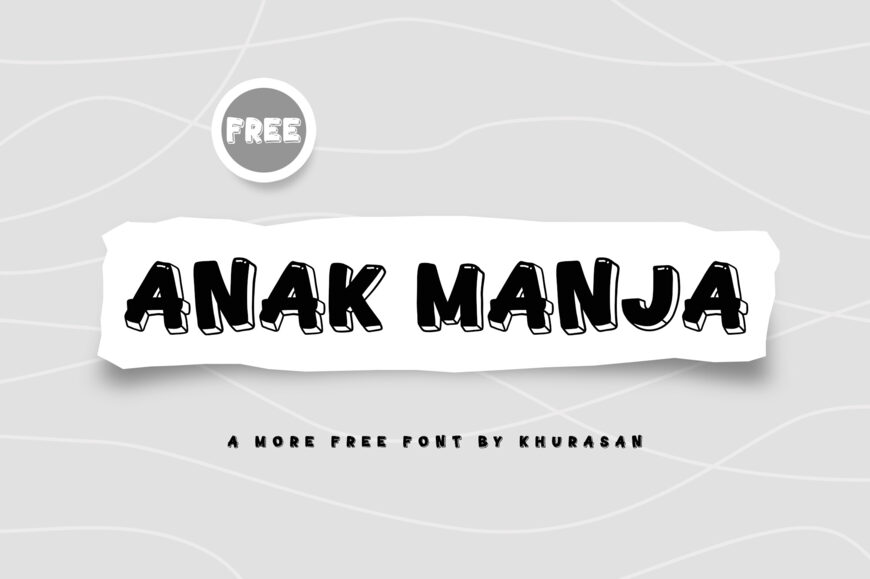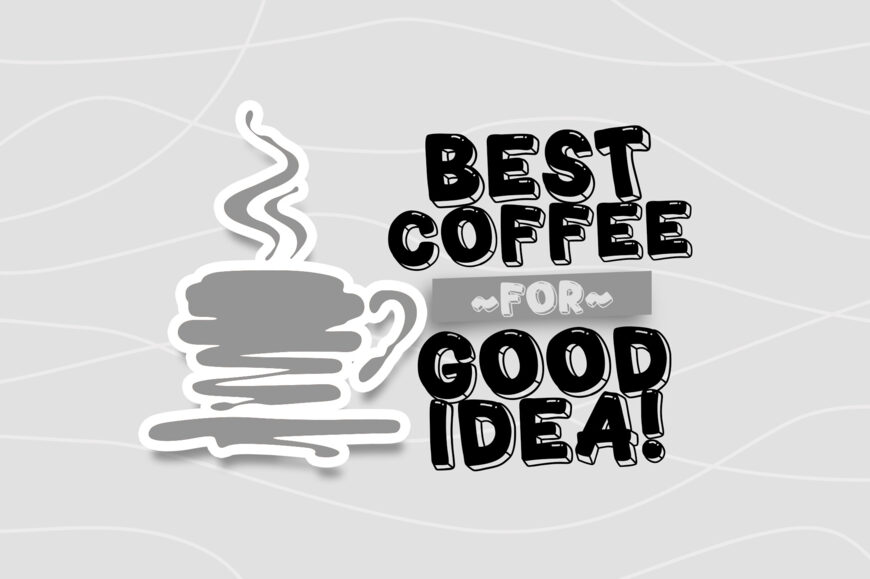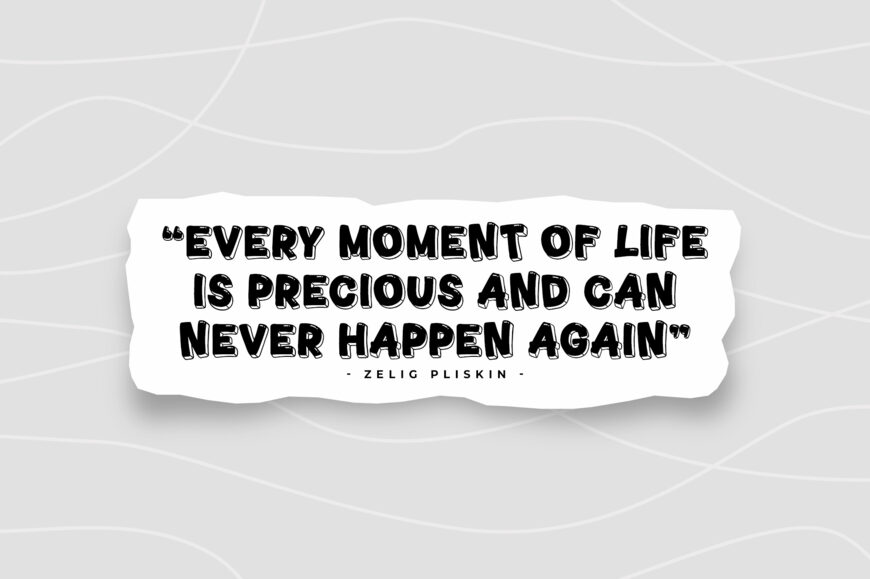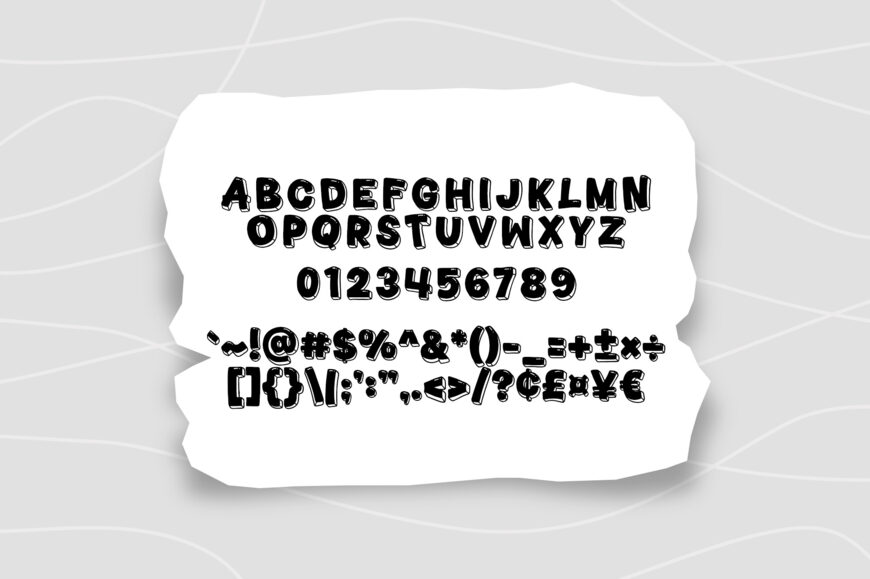
Anak Manja is a bold, playful display font created by Khurasan. Featuring a cartoonish, 3D blocky design with dimensional drop shadows and subtle inner highlights, it offers a fun, handwritten vibe.
Key Uses: Children’s book titles & cover art; Casual branding & coffee shop signage; Posters, quotes, & social media graphics; Product packaging requiring a cheerful, friendly aesthetic!